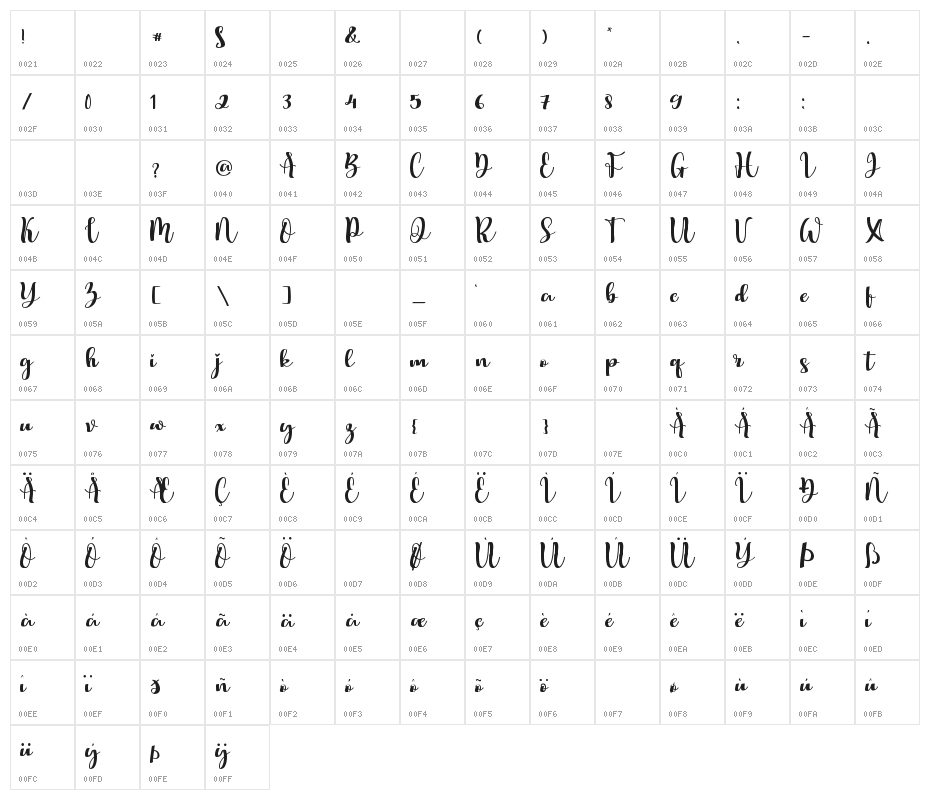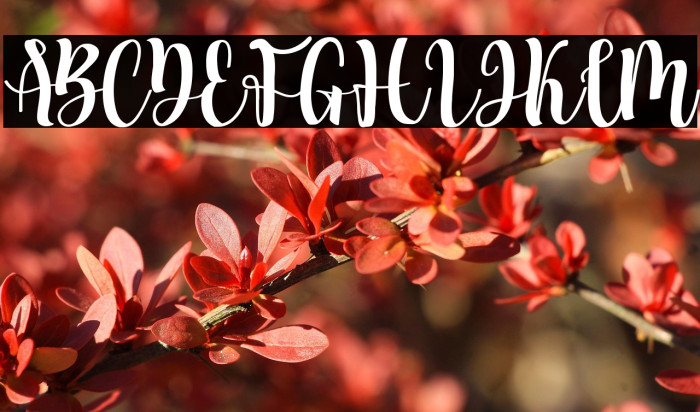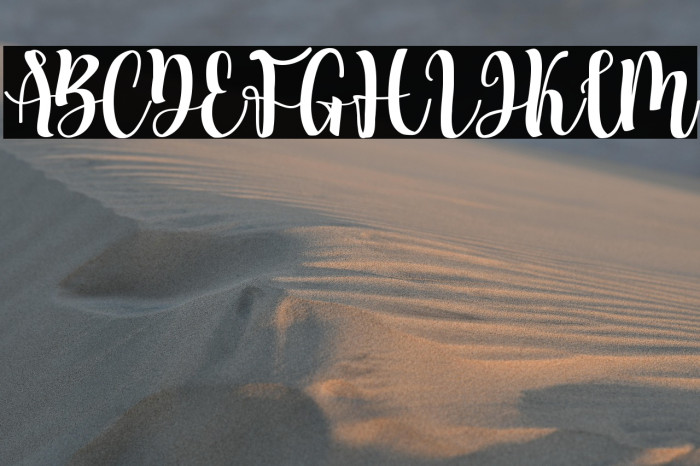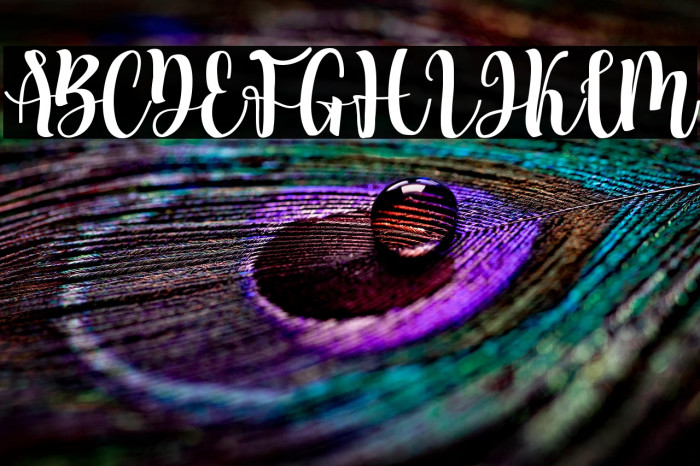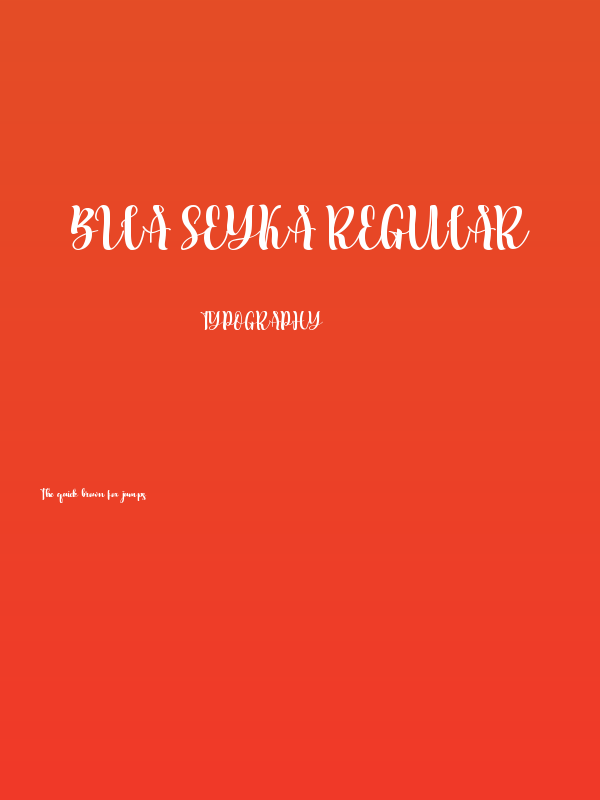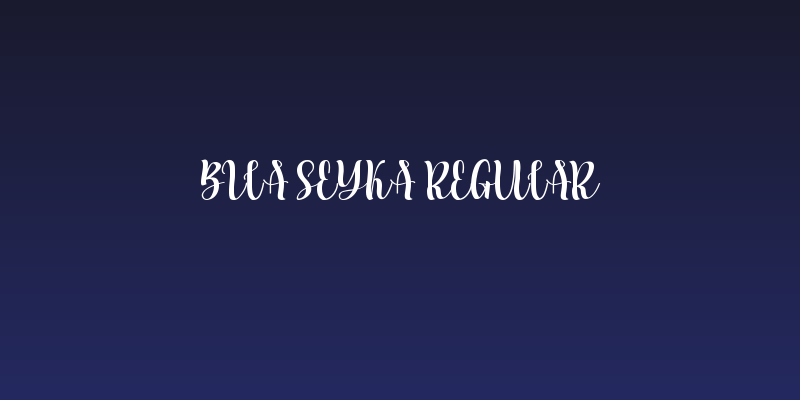
Bila Seyka Regular Font
Bila Seyka Regular Description
This font features a flowing, cursive style with elegant loops and swashes, giving it a handwritten appearance. The uppercase letters are bold and decorative, with intricate curves that add a touch of sophistication. The lowercase letters maintain a consistent style, with smooth connections between characters, enhancing readability while preserving the artistic flair. The numerals are distinct and maintain the same decorative quality, making them suitable for various design applications. Special characters are thoughtfully designed to match the overall aesthetic, ensuring a cohesive look across all text elements.